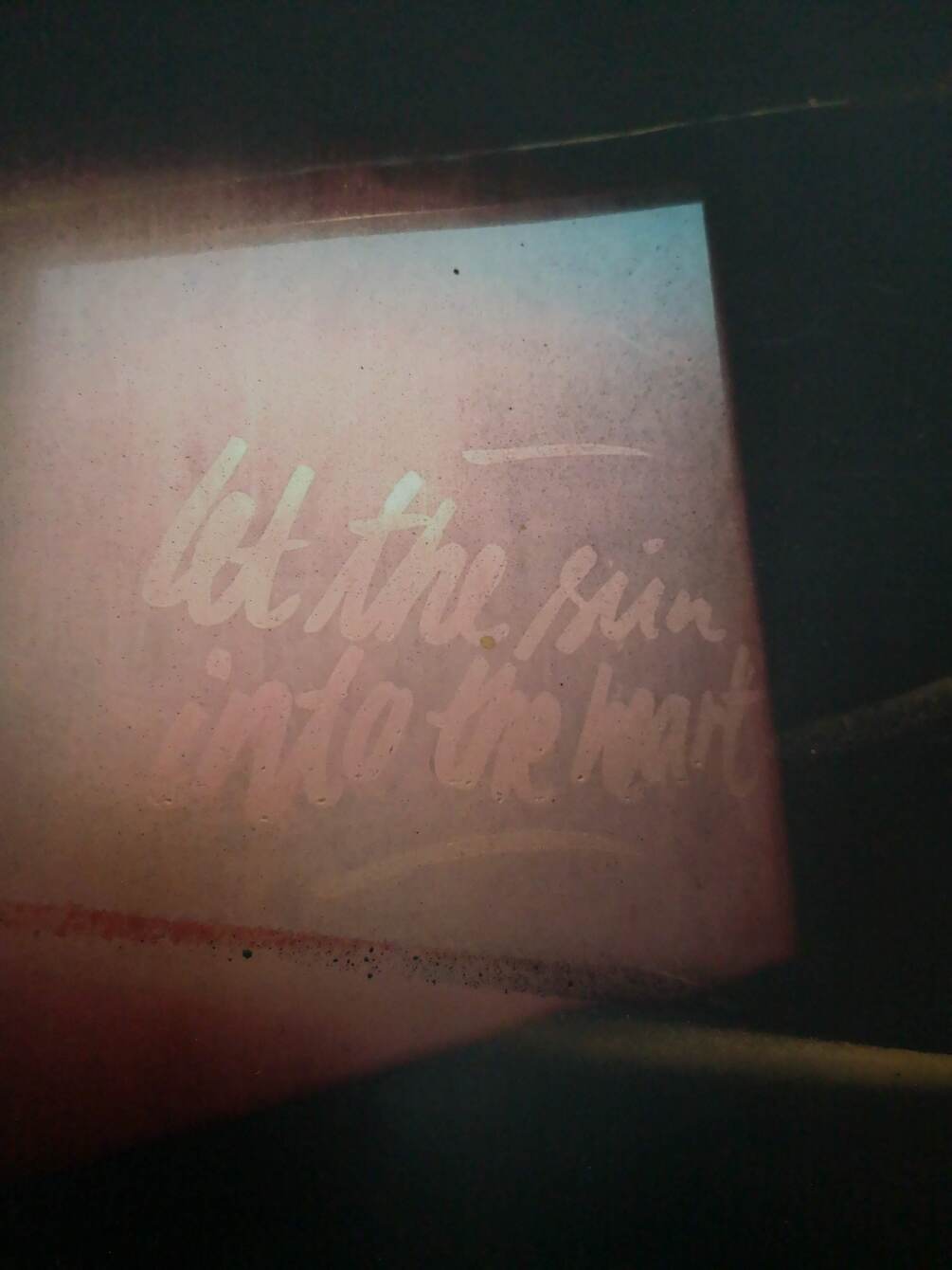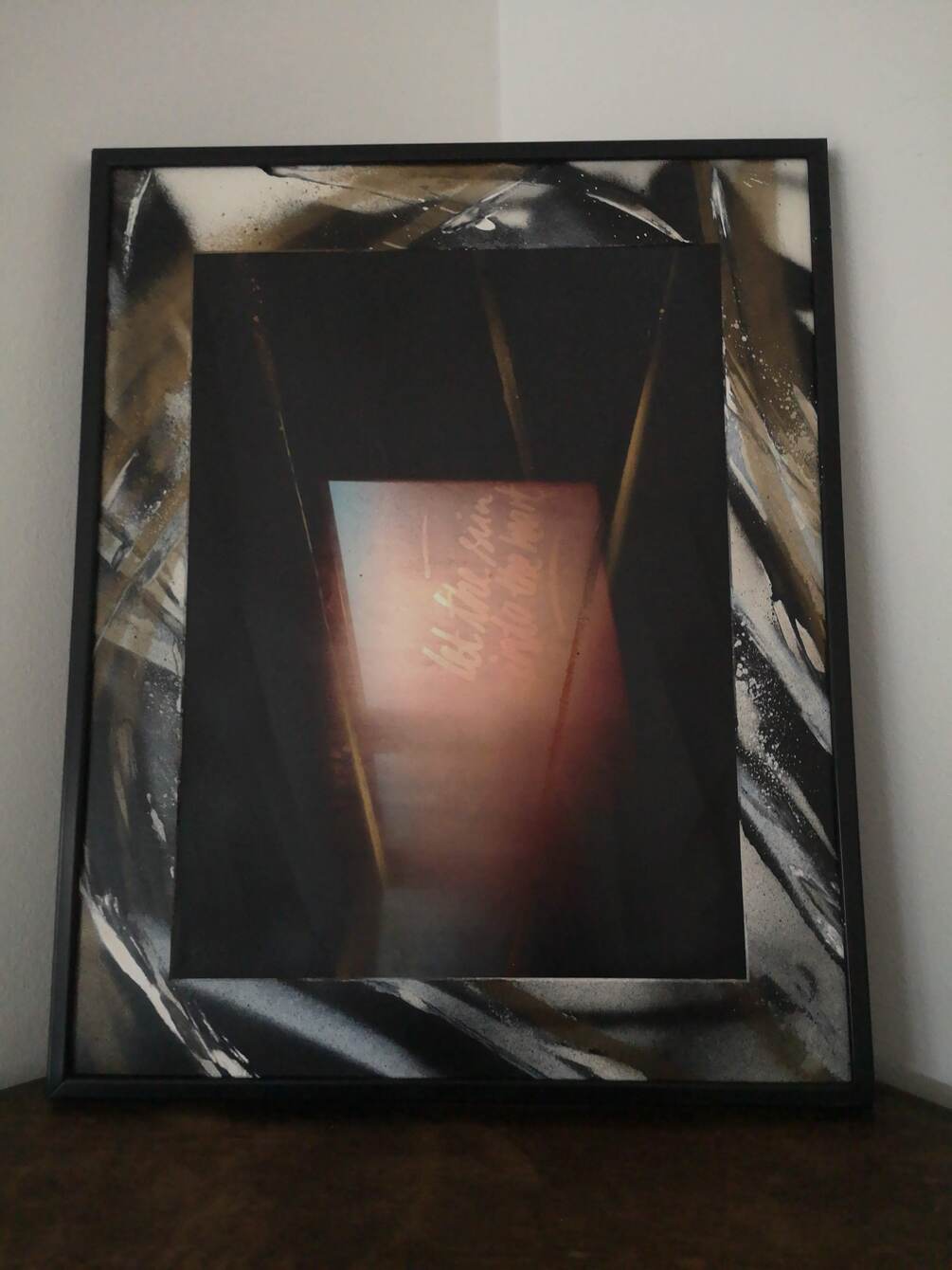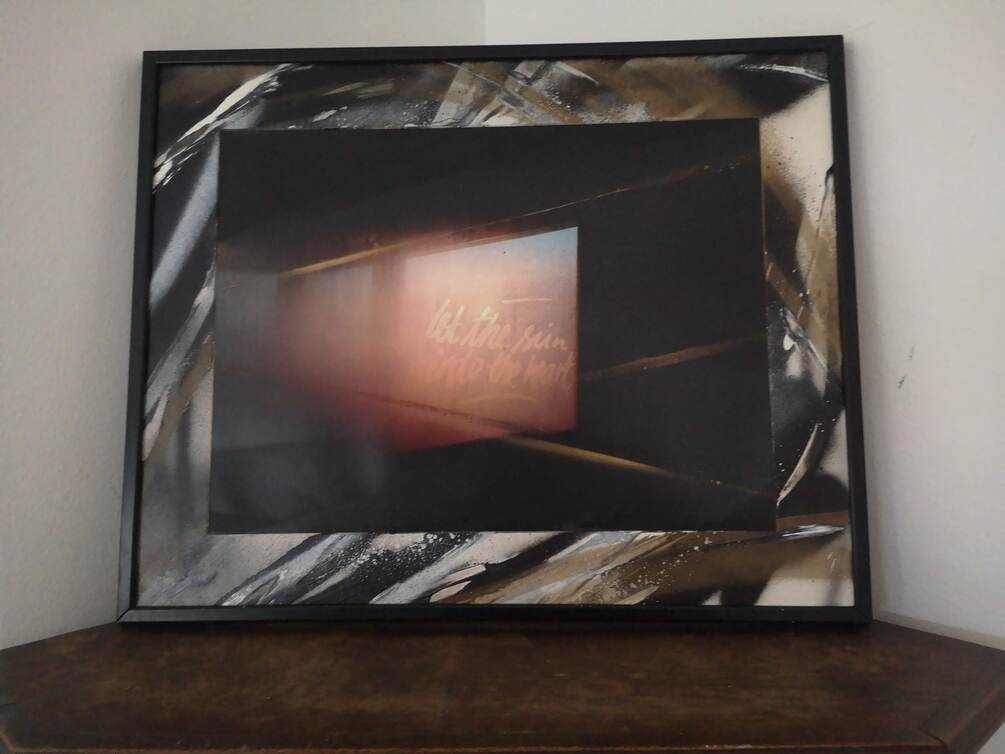
Let the sun into the heart/ 30x40cm
Let the sun into the heart. Heartaches, breaking barriers and opening the mind to something new
This work is a combination of photo, paint, and a frame. The letters was done the early morning on the train station, close to where I live.
The sunrise, the morning mist, and the ability to do a bit of a message were just in the right place. It's difficult to see on a screen, but I am using different kinds of black spray paint (glossy and matt) and gold.